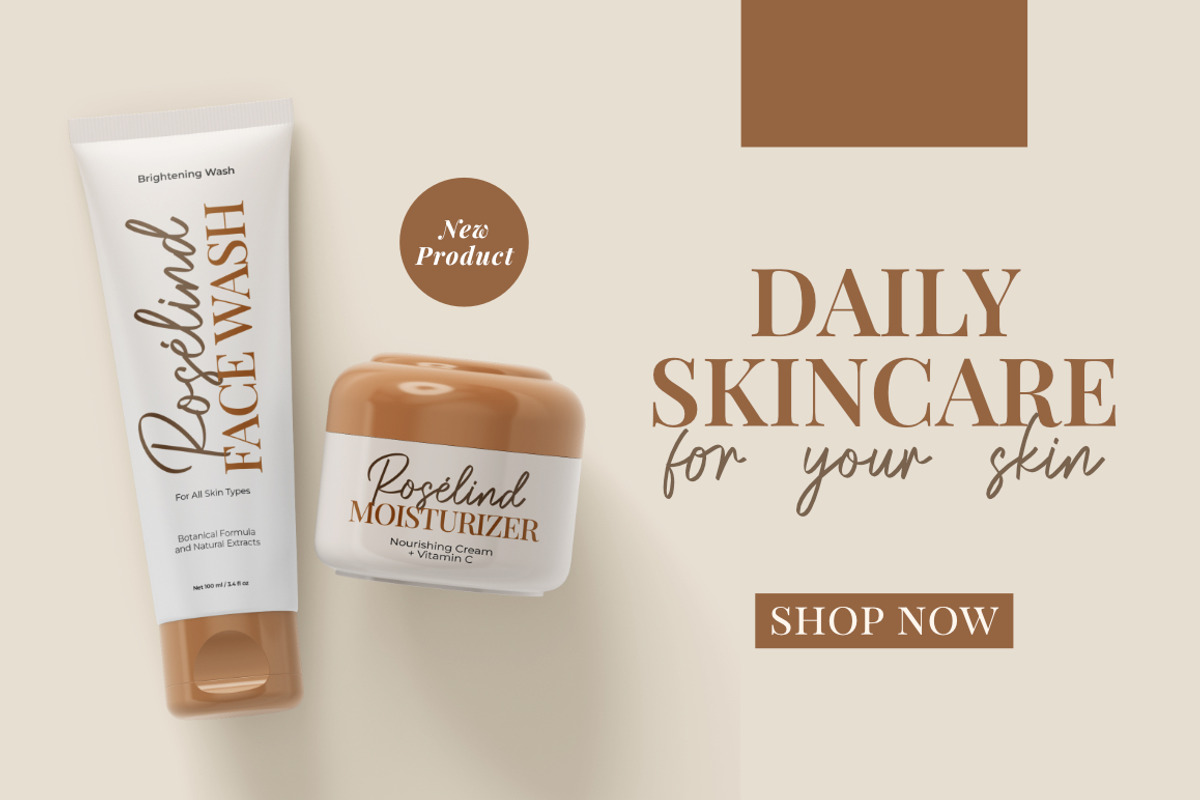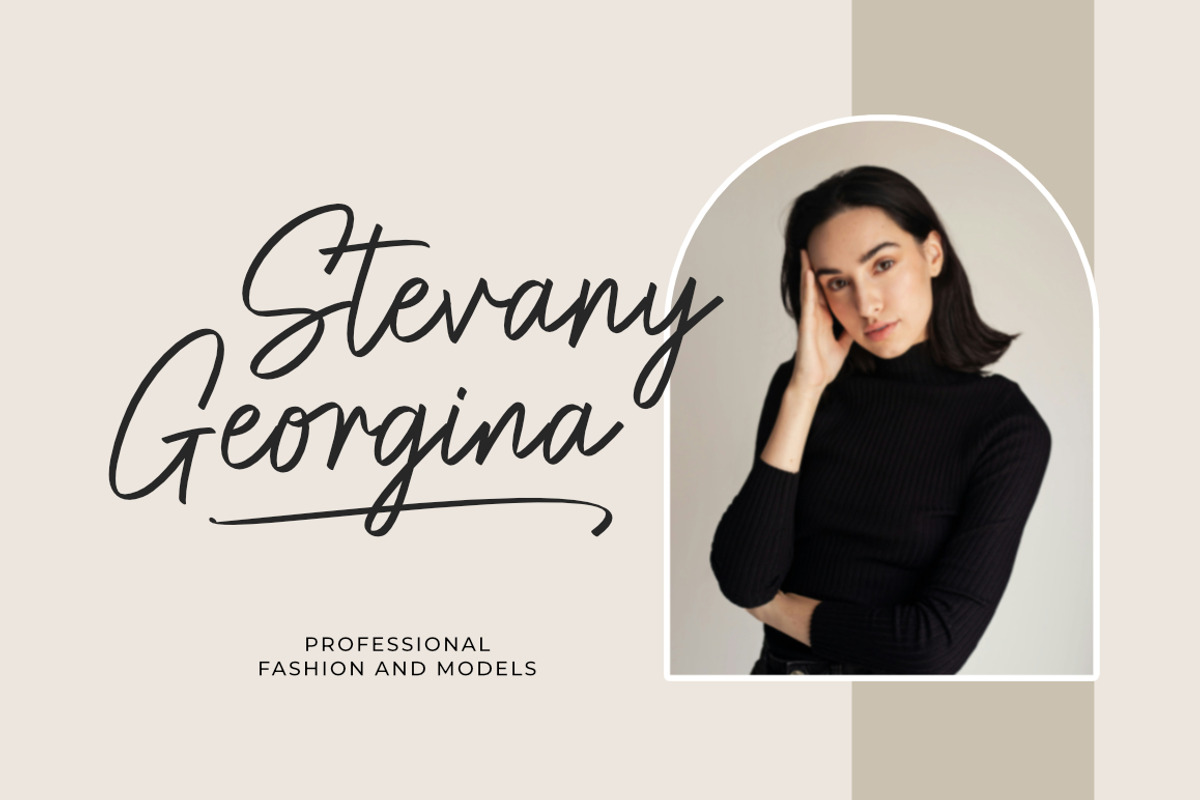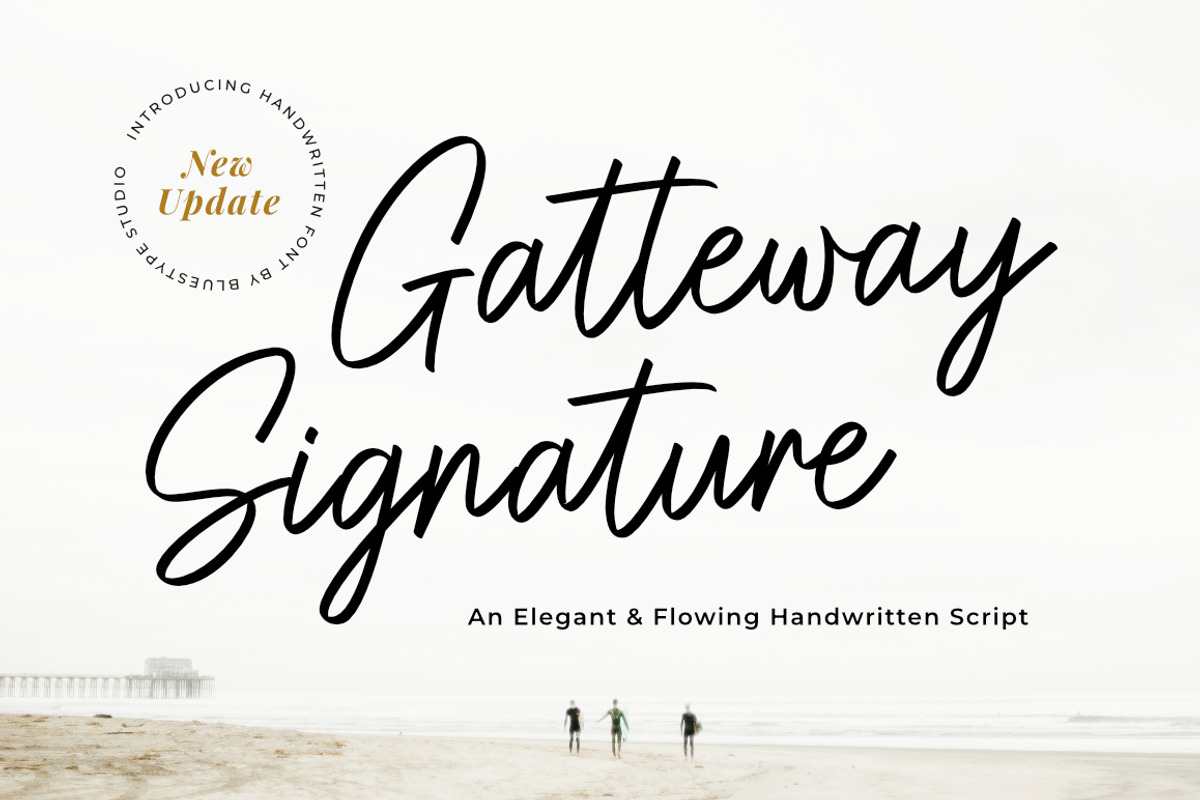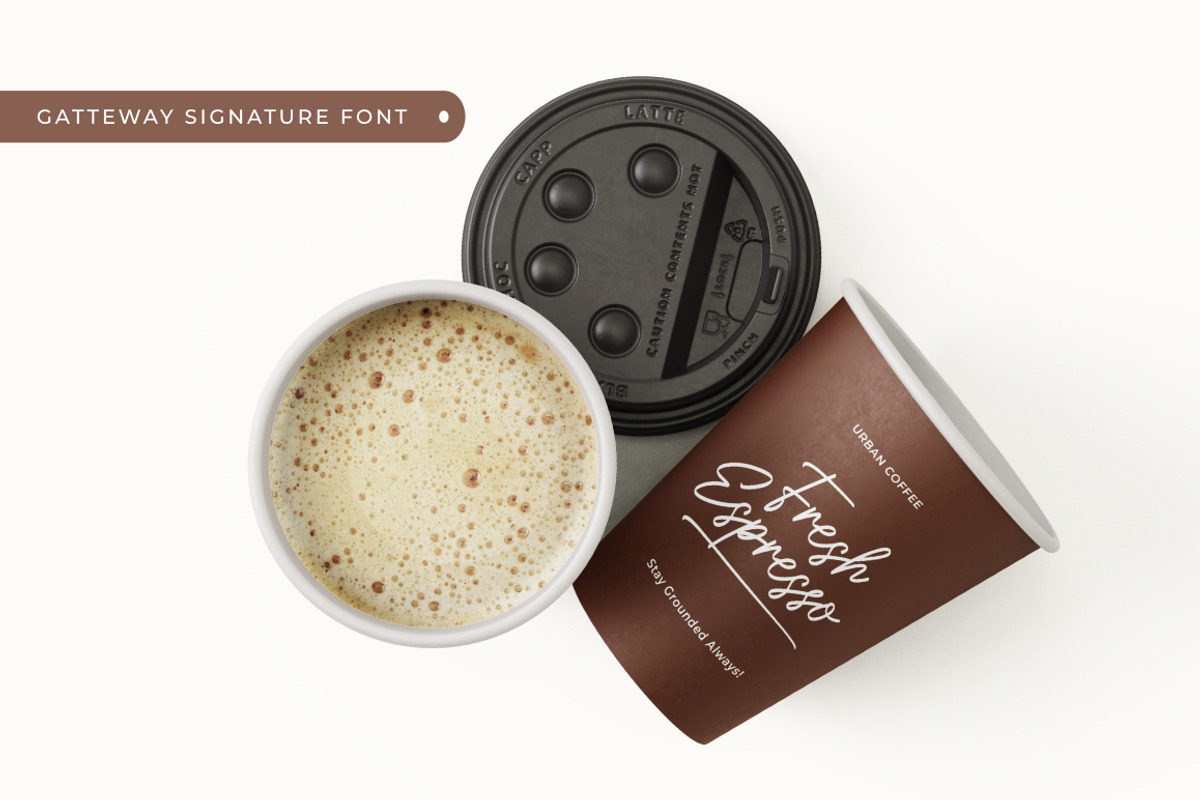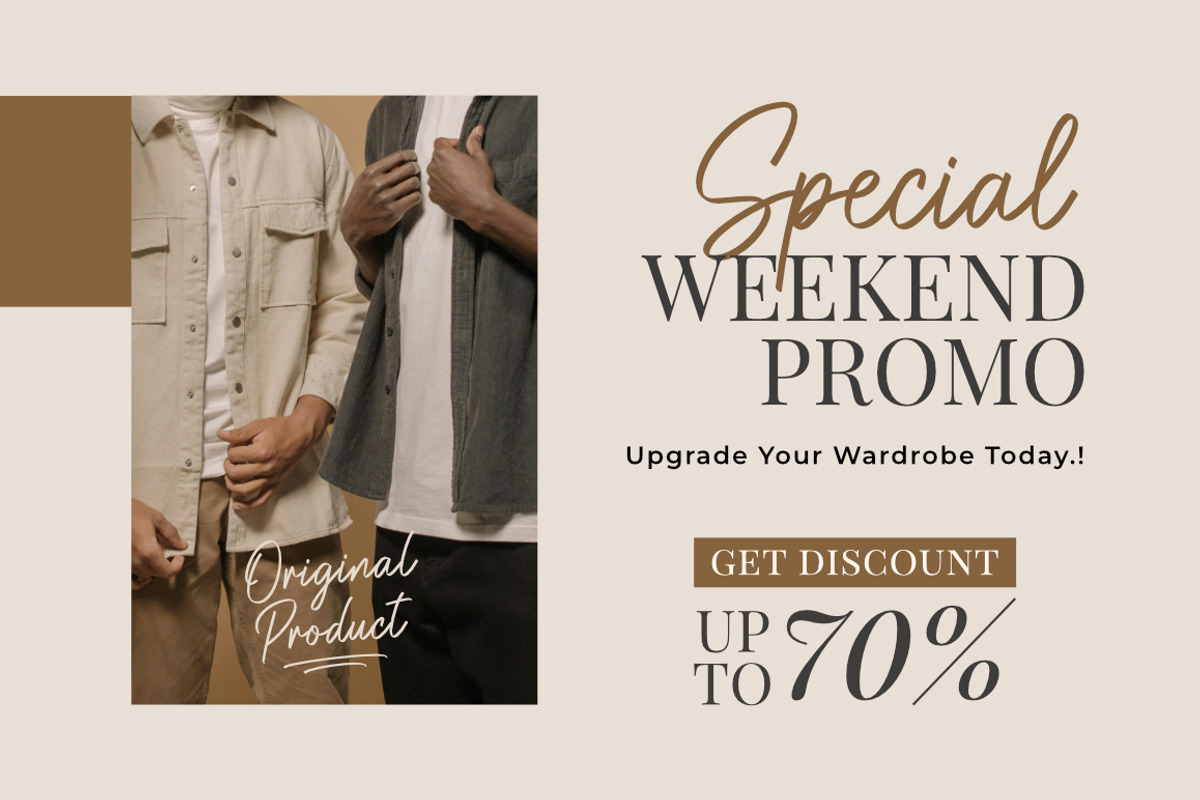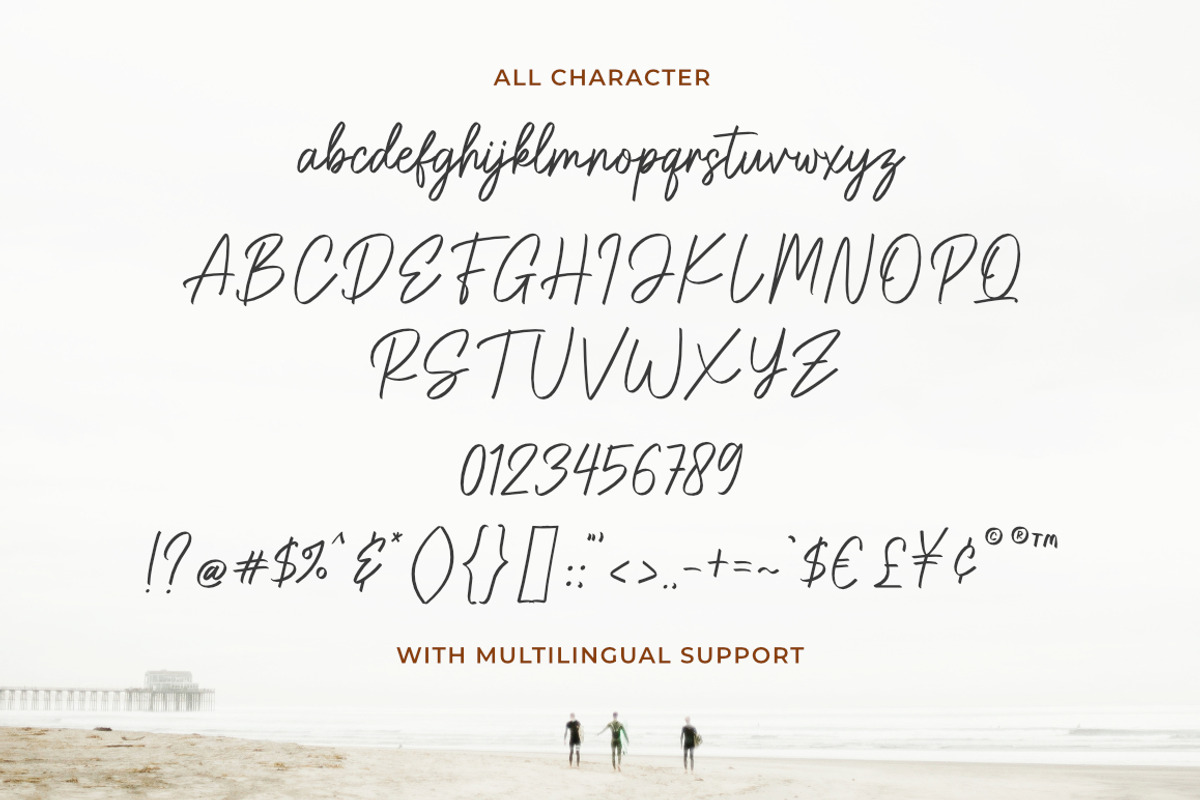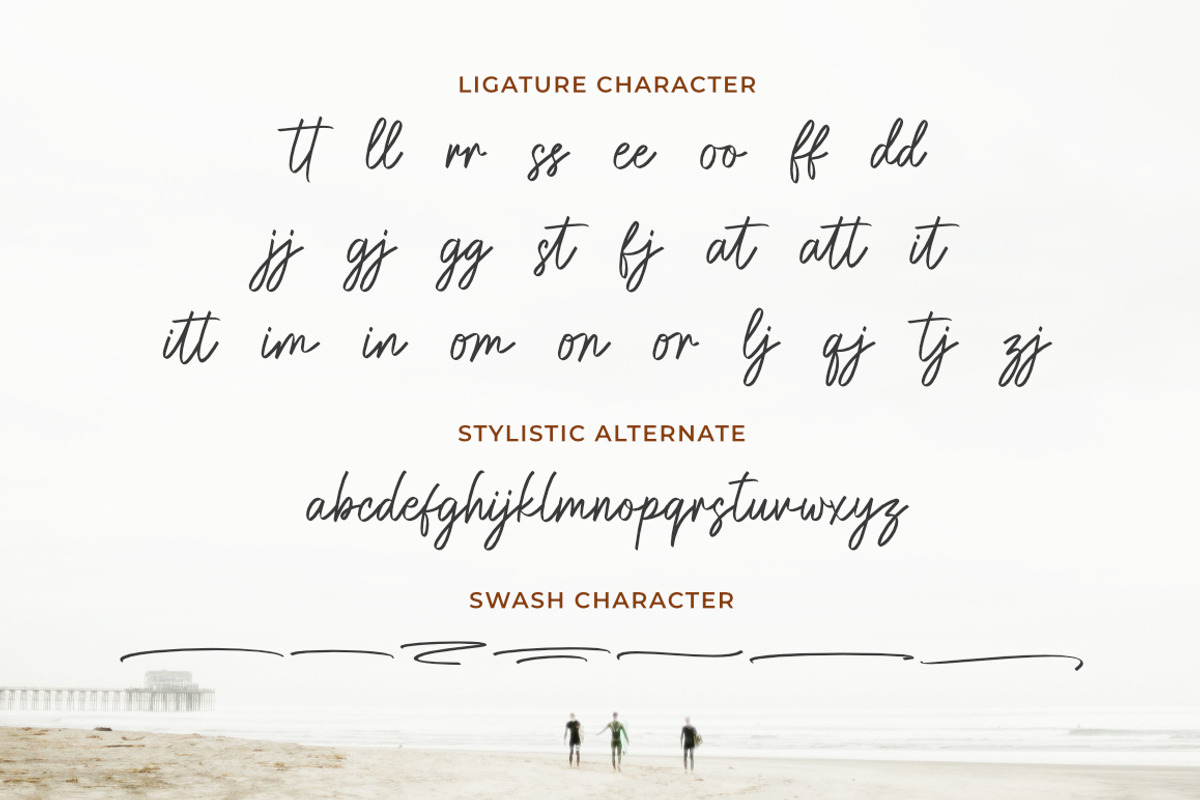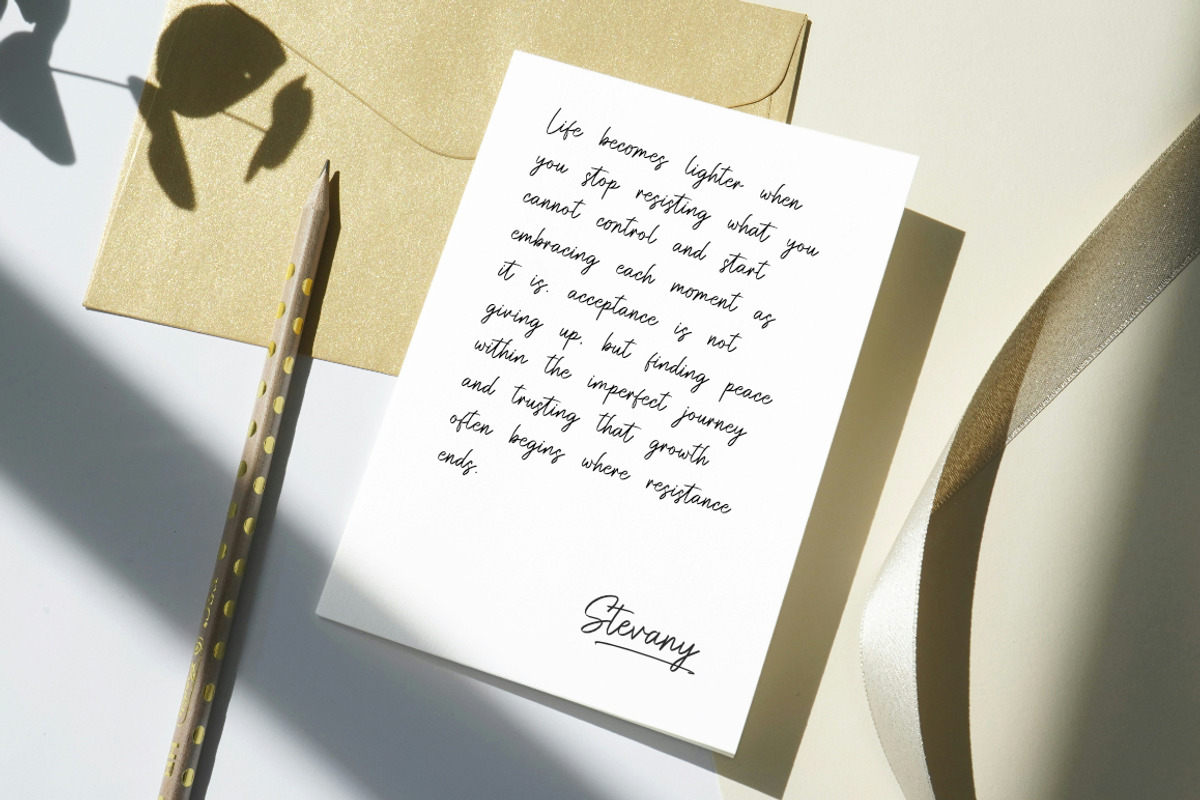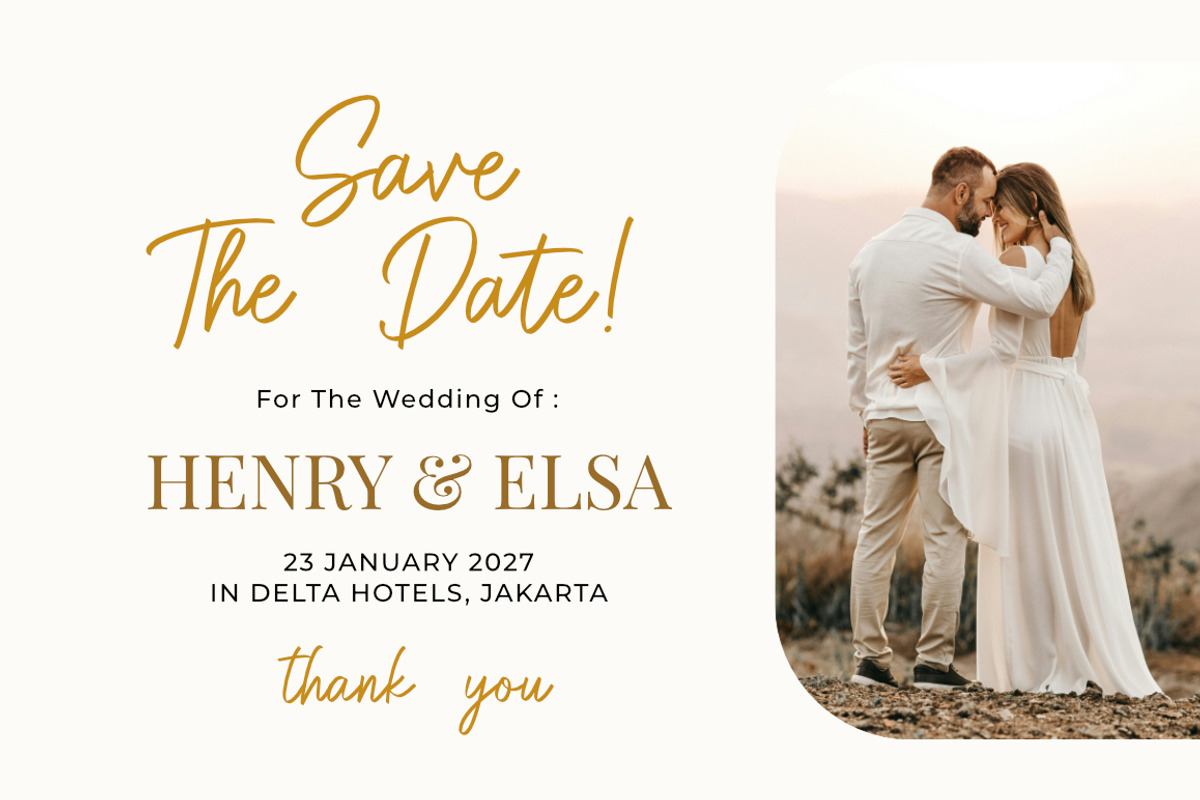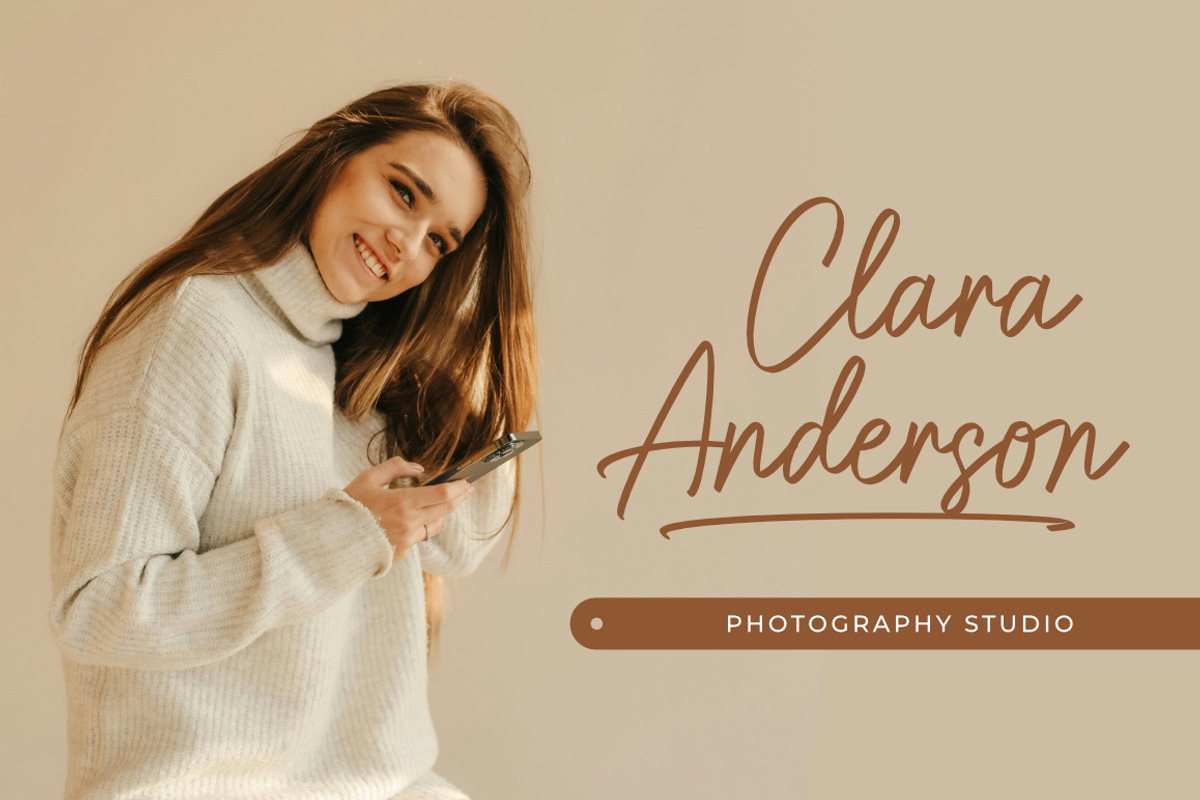
Gatteway Signature - Bold Script
NEW UPDATE : Gateway Signature now has updates on the addition of ligature characters, swash characters, and font improvements.
Gatteway Signature is a stunning script with a bold vibe. Get inspired by its cool feel.Originally a fan favorite, this newly remastered version brings even more versatility and refinement to your creative toolkit.
This font is suitable for use on branding, photography, business cards, weddings, t-shirt designs, logos, magazines, quotes, fashion, watermarks, invitations, signatures. Best paired with Clean Sans Serifs (for a modern look) or Classic Serifs (for timeless elegance).
- Swash Character
- Stylistic Alternate
- Support Multilingual